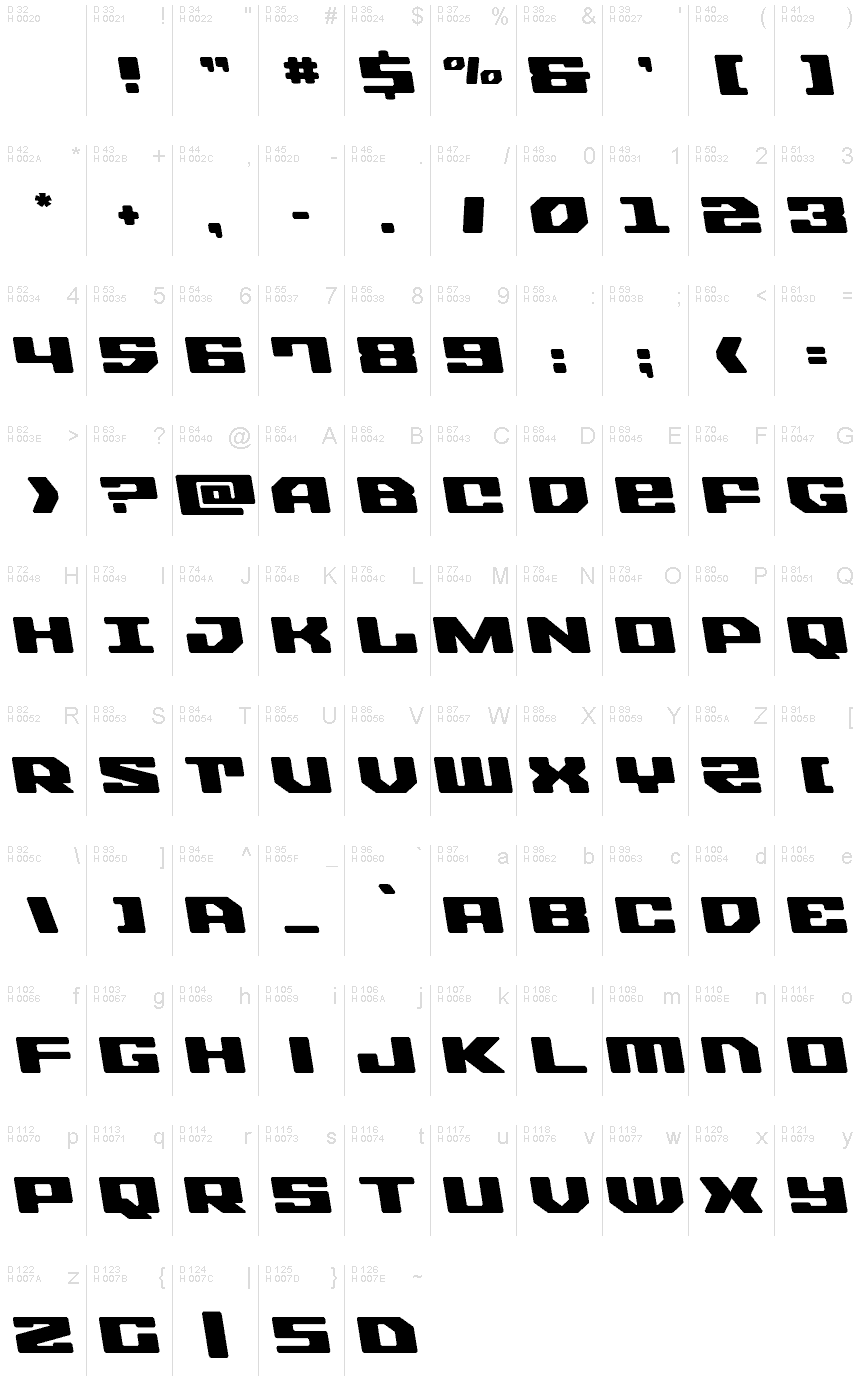
Fawkes Semi-Leftalic
Fawkes Semi-Leftalic font by Iconian Fonts combines an edgy and modern appearance in one package. The expanded bold display free font is made in a futuristic techno style with its unique look being quite memorable to anybody viewing your design. Letters keep their elegance thanks to both their sharp details and perfect curves, offering the best of every world.
Applying this typeface is easy for all projects where an impactful first impression is needed – posters, flyers, magazines, movie covers, social media posts and more. T-shirts designs as well would be excellent as would any other apparel item your audiences like to wear.